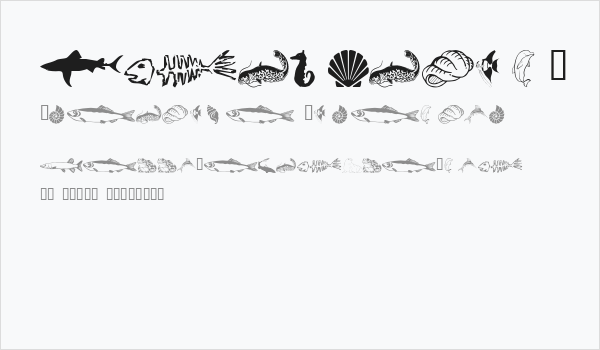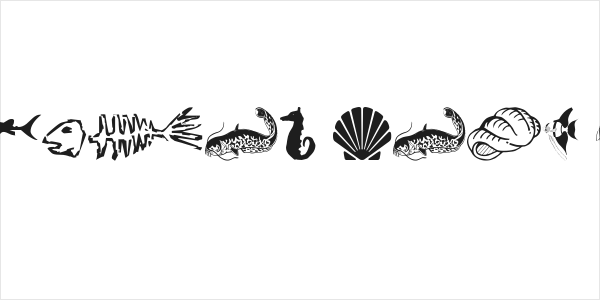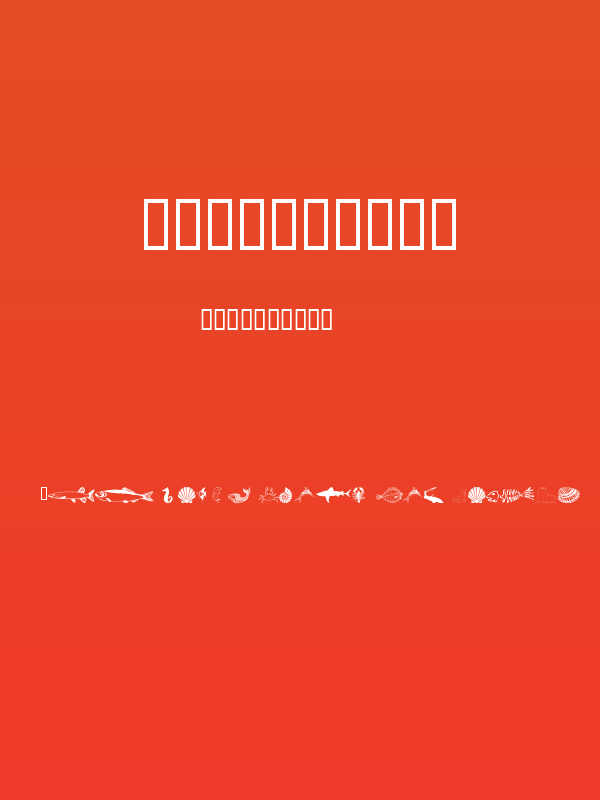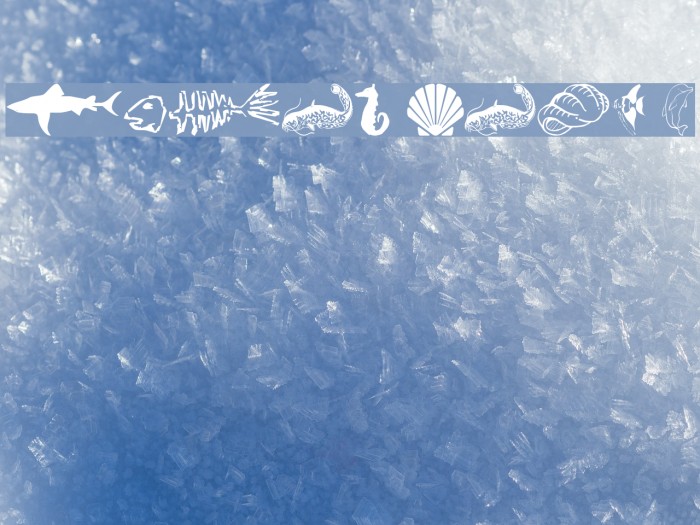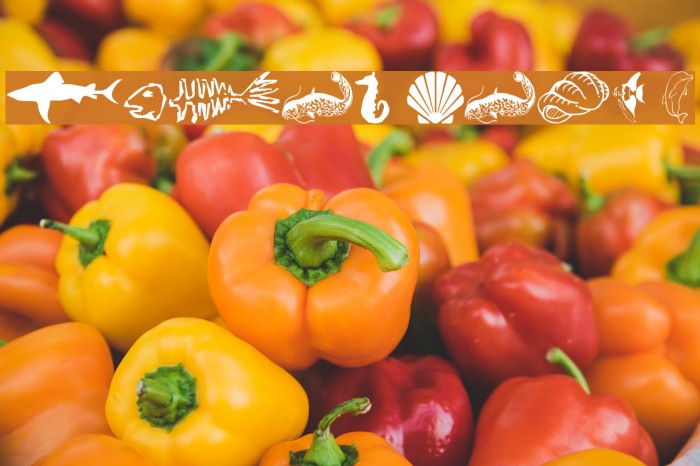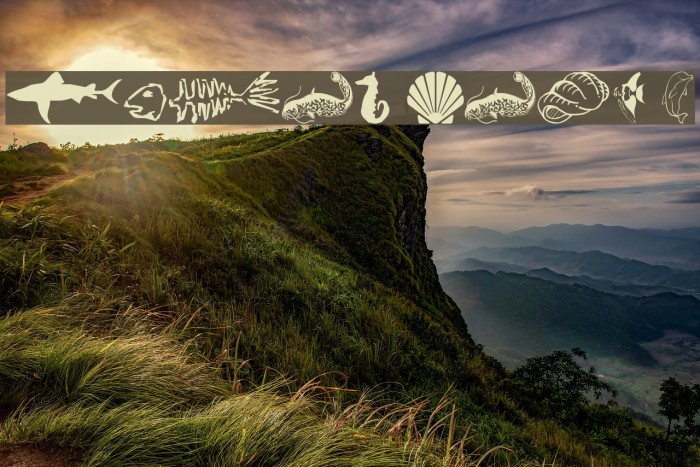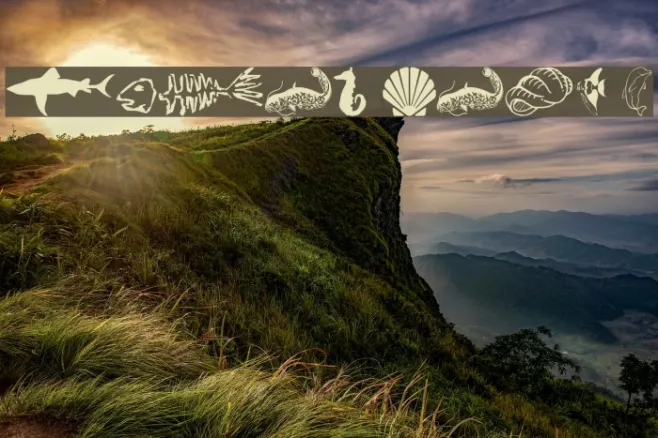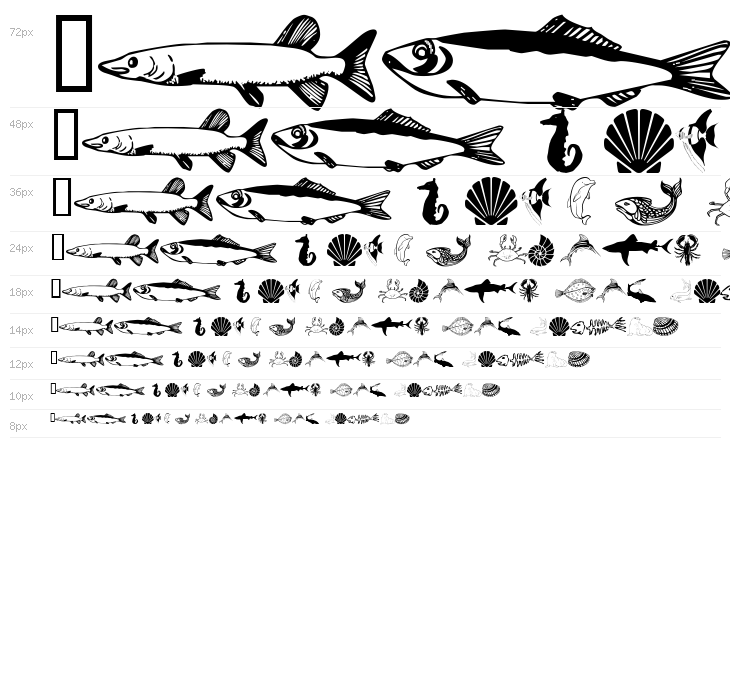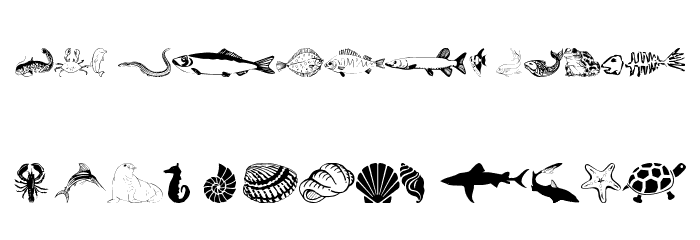
wmaquatic1 Font
wmaquatic1 Description
A decorative dingbat font featuring detailed black-and-white illustrations of aquatic animals, fish, shells, and sea creatures. Each character is represented by a unique marine-themed drawing, making it highly illustrative and ornamental.
| Overall Style | Decorative, Thematic, Illustrative |
| Use Case | Decorative elements, Icons, Themed graphics |
| Proposed Projects | Children’s books, educational materials, ocean-themed party invitations, scrapbooking, decorative borders, and marine conservation campaigns. |